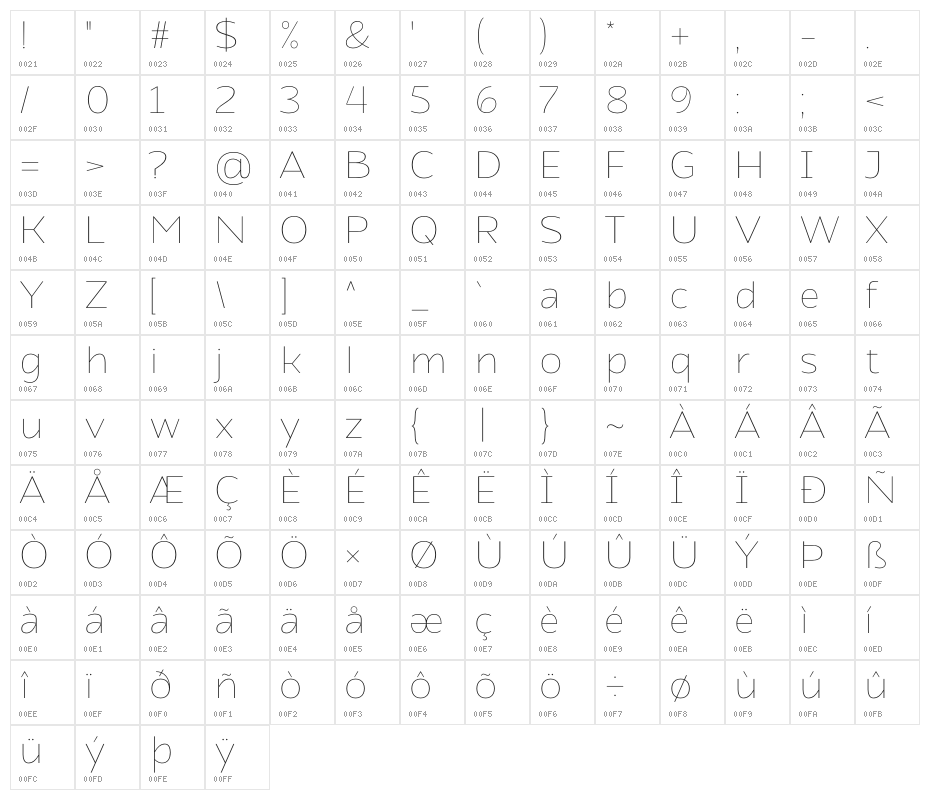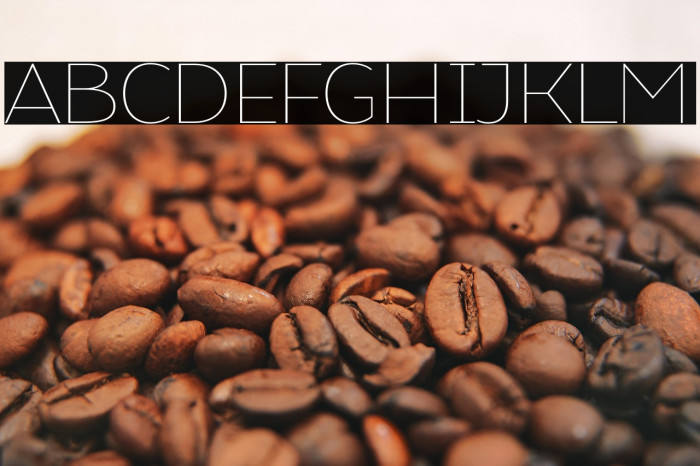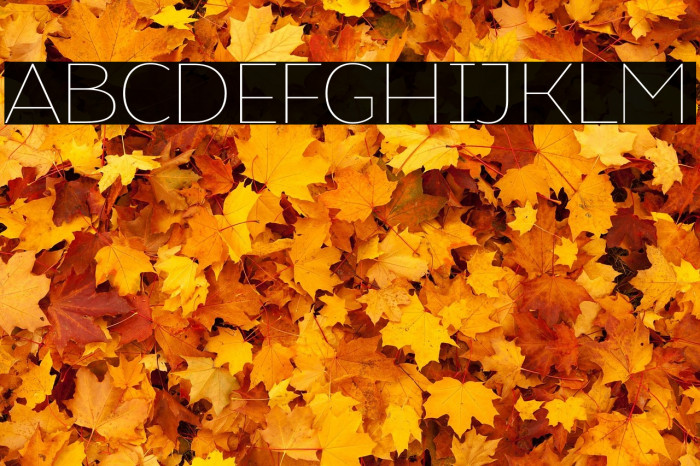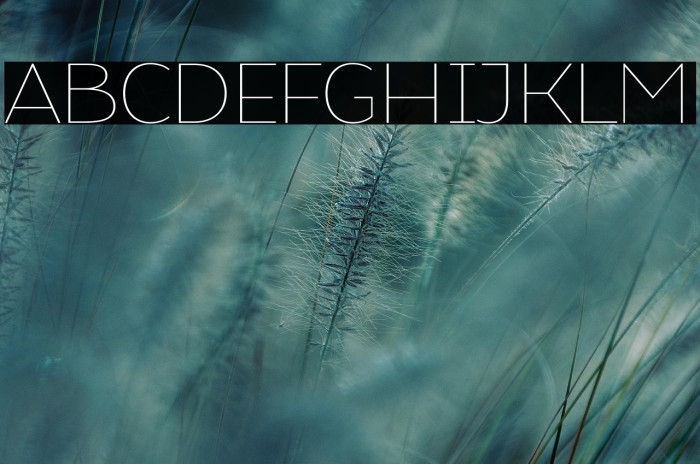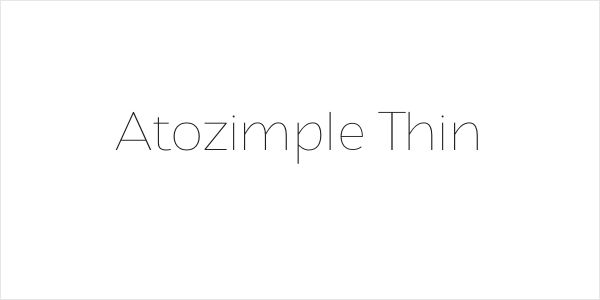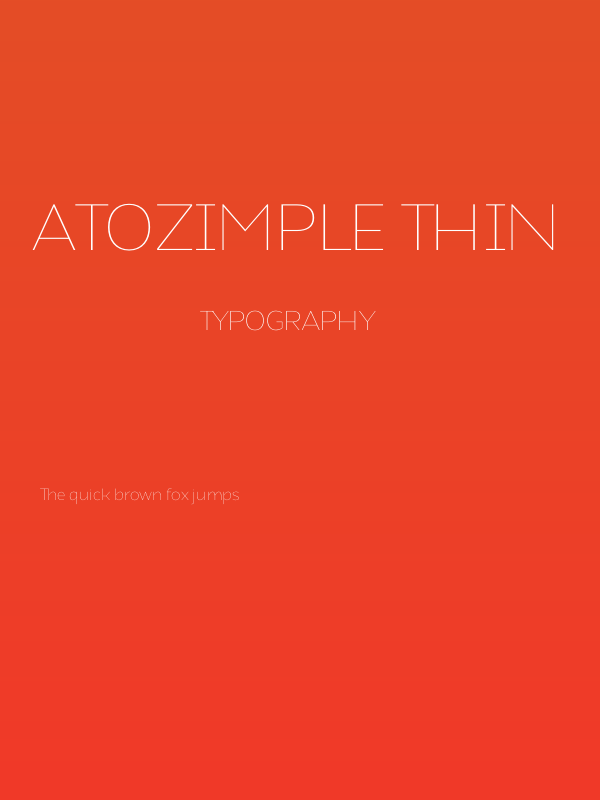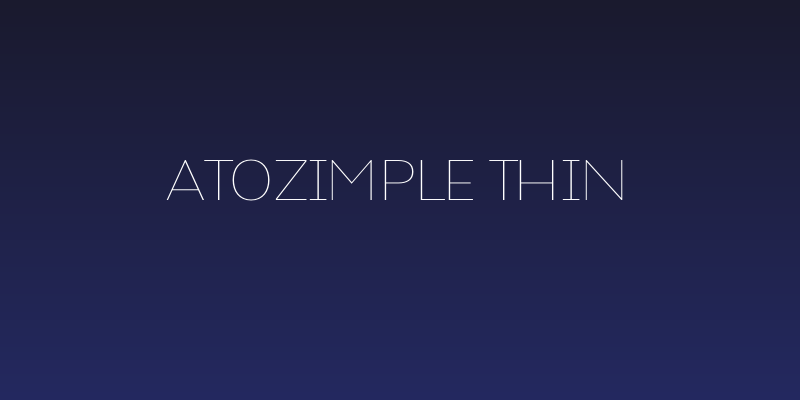
Atozimple Thin Font
Atozimple Thin Description
This font is a sleek and modern sans-serif typeface characterized by its thin strokes and minimalist design. The letters are evenly spaced, providing a clean and airy appearance. The uppercase and lowercase letters maintain a consistent style, with smooth curves and straight lines that enhance readability. The numerals are clear and distinct, matching the overall aesthetic of the alphabet. Special characters are included, maintaining the same thin and elegant style. This font is ideal for projects that require a contemporary and sophisticated look.